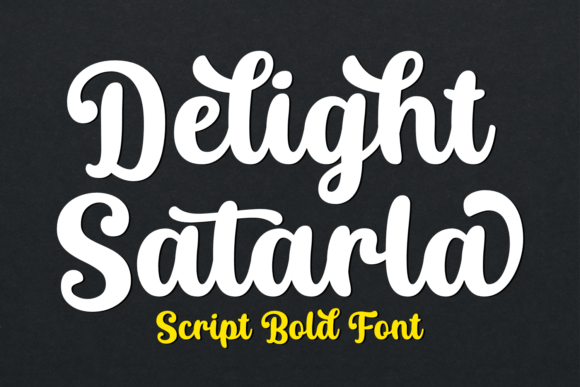
Prepare to be enchanted by "Delight Satarla," a script font that dances across your screen like a melody. Its bold and intricate letters intertwine harmoniously, adding a touch of sophistication and charm to everything it touches. Whether you're creating captivating invitations, designing eye-catching logos, or crafting heartfelt branding materials, "Delight Satarla" promises to elevate your creative projects to new heights.
With its PUA encoding, accessing the font's treasure trove of glyphs and ligatures is a breeze. Unleash your imagination and explore endless possibilities, crafting designs that shimmer with creativity and leave an unforgettable impression.
Journey into the world of "Delight Satarla," where elegance and personality converge. Let its captivating characters guide you as you create designs that resonate with your audience. From the moment they lay their eyes on your creations, they'll be captivated by the beauty and charm that only "Delight Satarla" can bring.
But don't just take our word for it. Dive into the gallery of stunning creations brought to life by this extraordinary font. Witness how it transforms ordinary words into captivating works of art, each letter a testament to the power of design. Let "Delight Satarla" inspire you and unlock your creative potential.
So, embark on this enchanting journey with "Delight Satarla" today. Let its allure captivate your imagination and infuse your designs with a touch of magic. Experience the joy of creating with a font designed to turn heads, spark conversations, and leave a lasting impression wherever it goes.